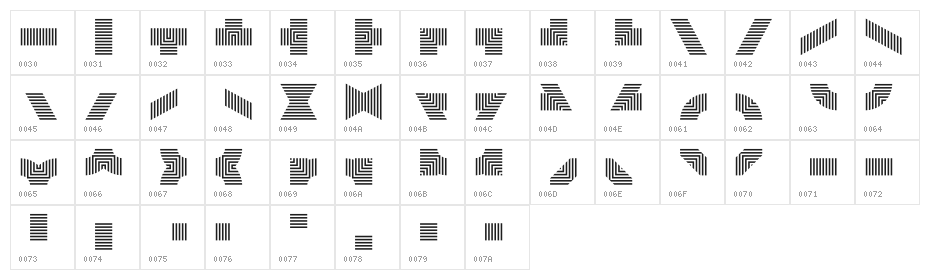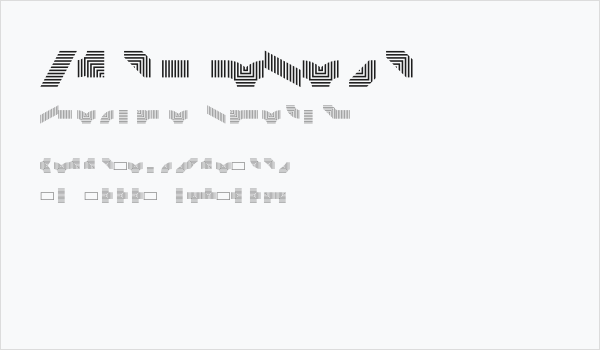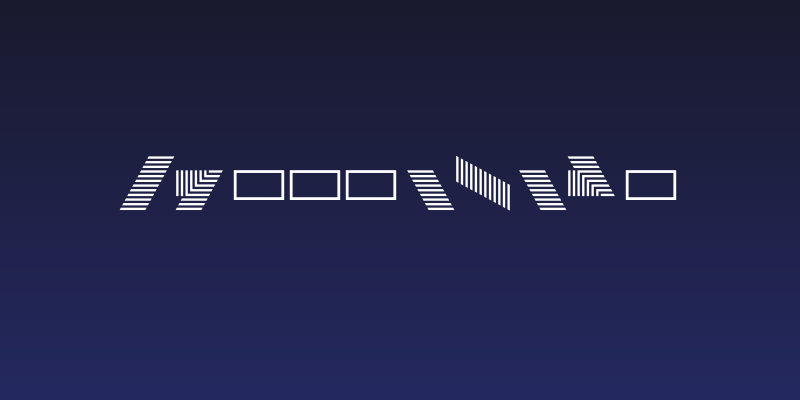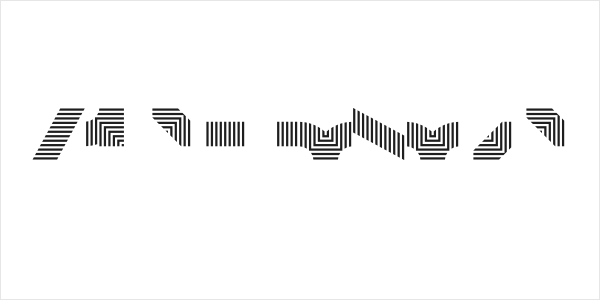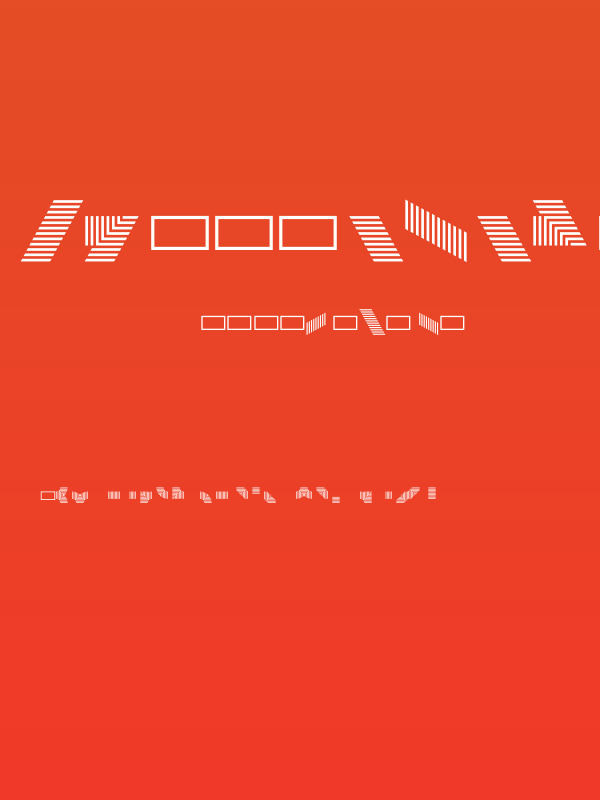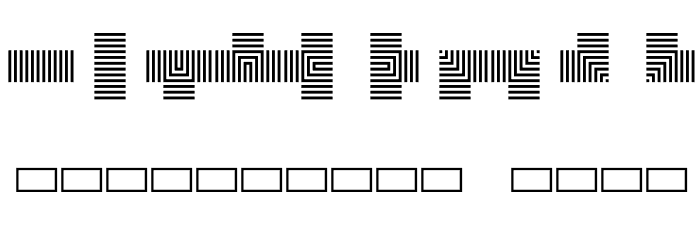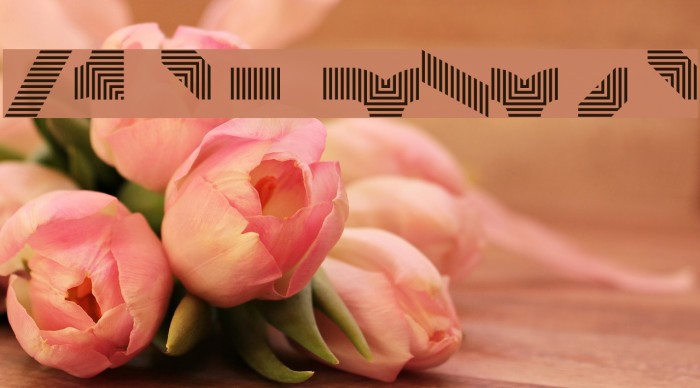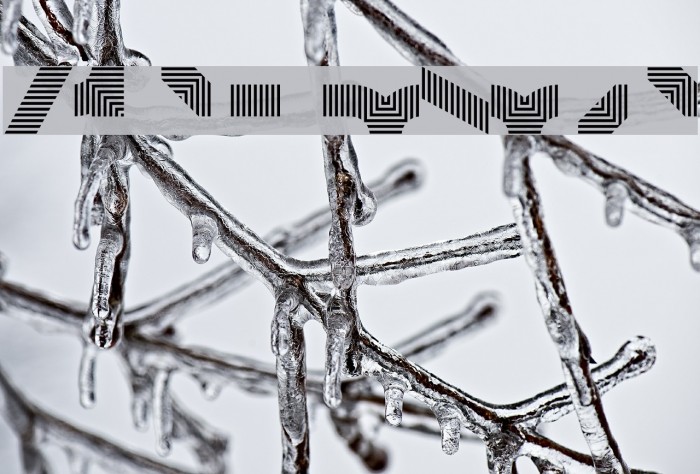
BloqueDemo Font
BloqueDemo Description
This font features a unique design characterized by its use of horizontal and vertical lines to create each character. The letters are constructed with a series of parallel lines that form geometric shapes, giving the font a modern and abstract appearance. The style is highly decorative, making it stand out with its bold and artistic flair. Each character is distinct, with varying line thicknesses that add depth and dimension. The font's design is reminiscent of optical illusions, drawing the viewer's attention with its intricate patterns and visual complexity.
| Proposed Projects | Ideal for artistic projects, modern branding, poster designs, and any creative work that requires a bold and eye-catching typeface. |